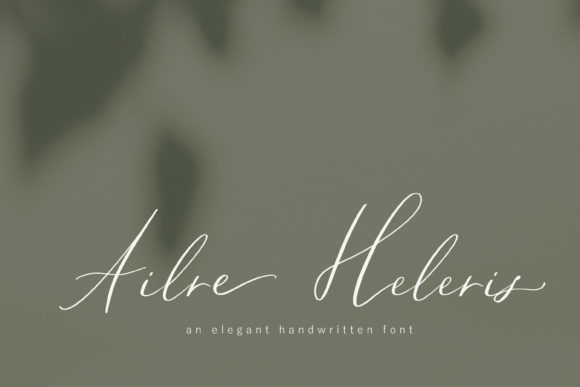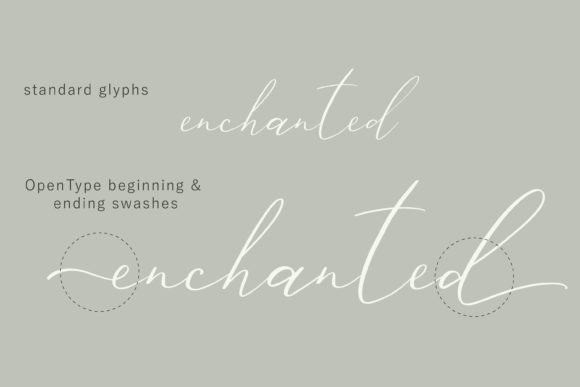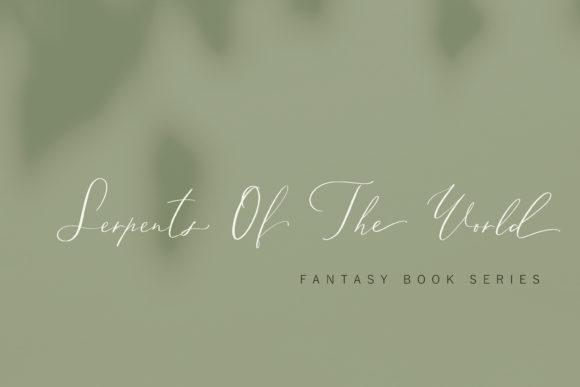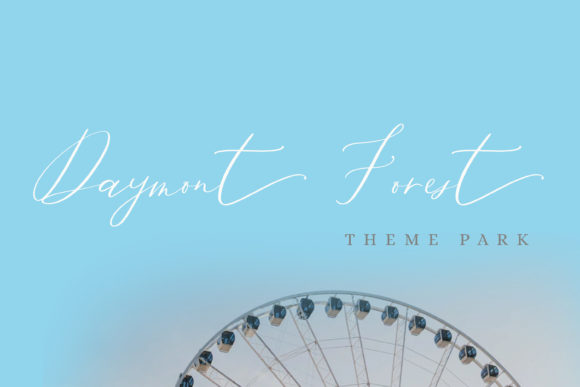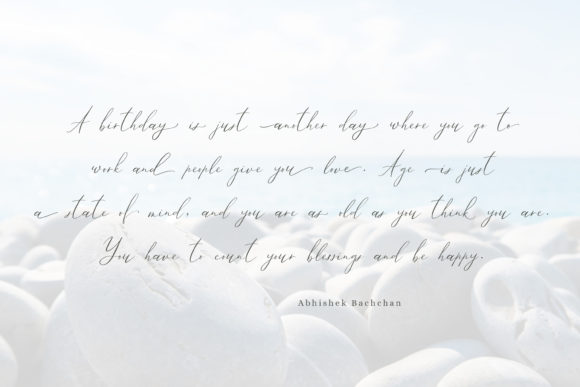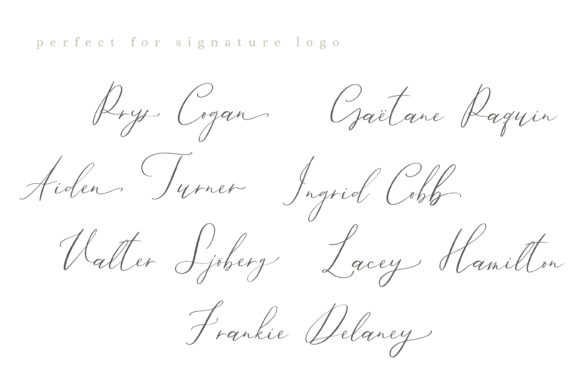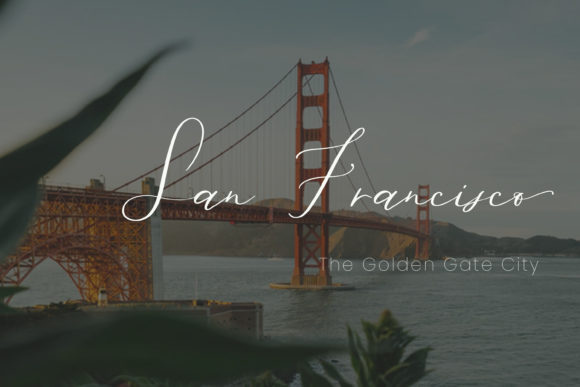
Ailre Heleris Font
About Ailre Heleris Font
Ailre Heleris is an elegant script font with natural handwritten style that flows freely. Perfect for a variety of design projects!